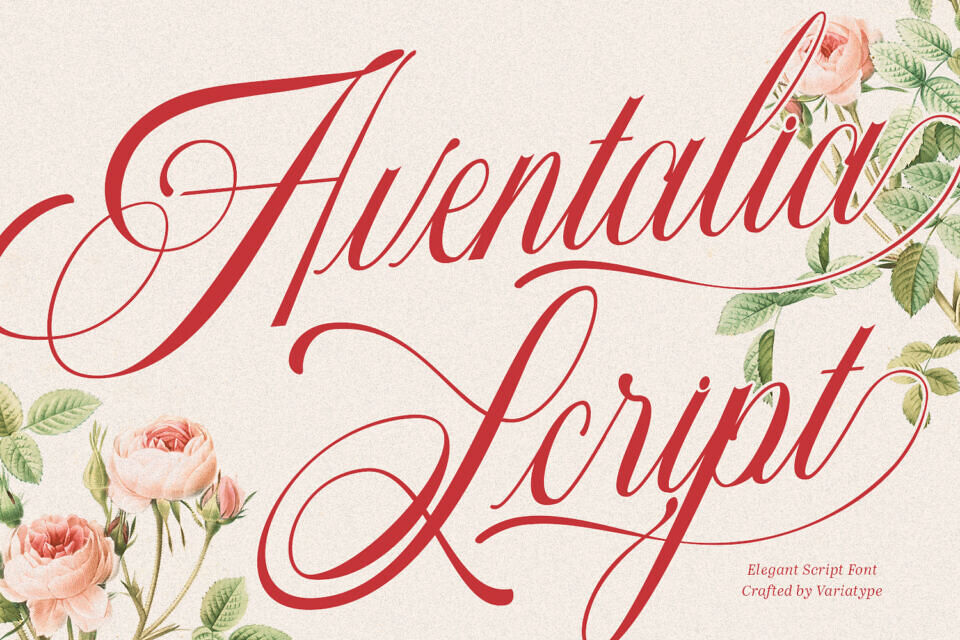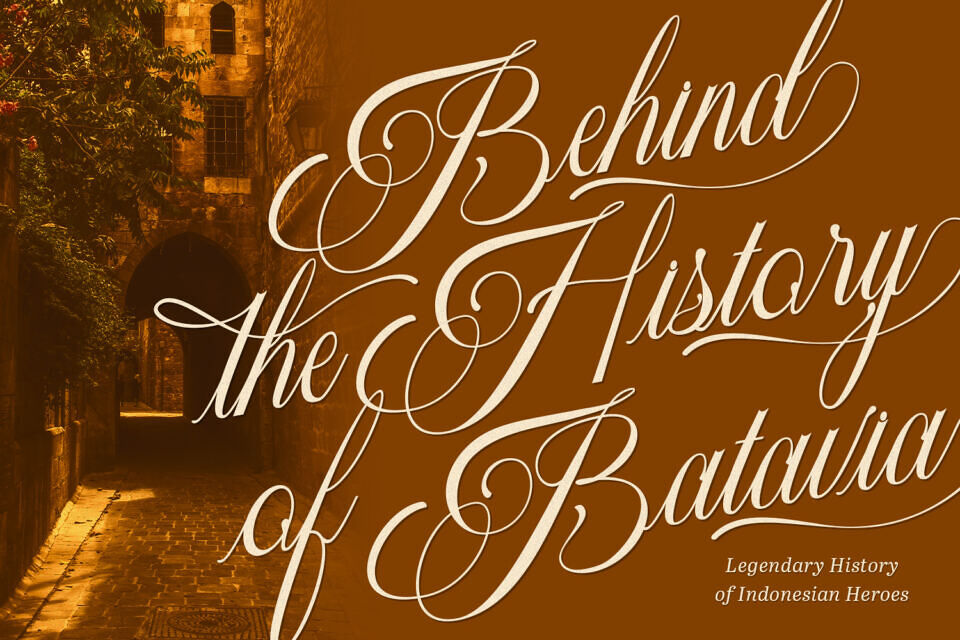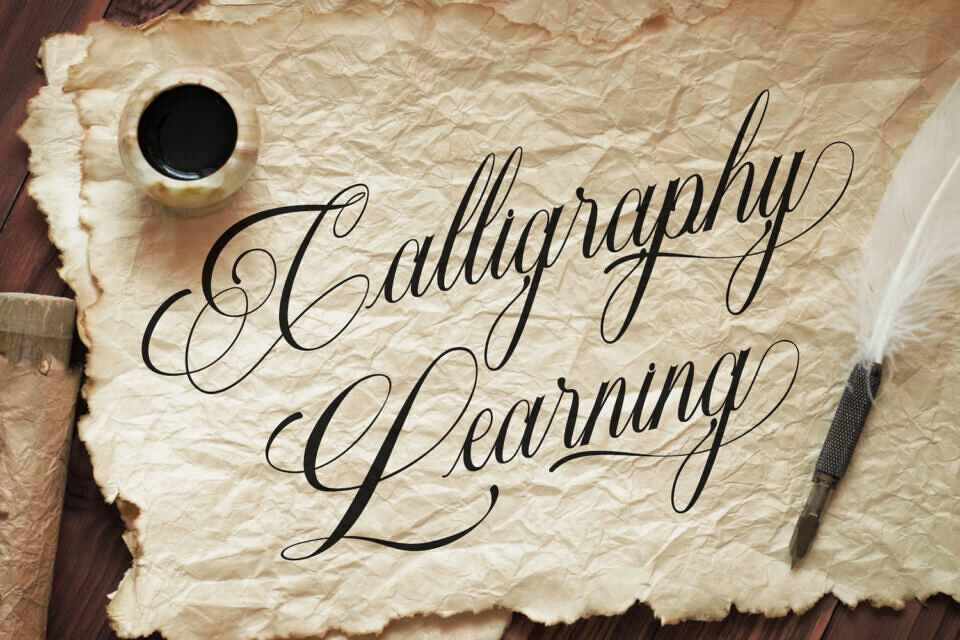
Aventalia is an elegant calligraphy script font designed with flowing curves, refined strokes, and luxurious detailing. Suitable for adding timeless sophistication to any project.
Its graceful letterforms and romantic charm make it ideal for wedding invitations, branding, packaging, logos, stationery, and any design that deserves a touch of classic beauty. Aventalia brings a sense of delicacy and artistry that elevates every visual it touches.